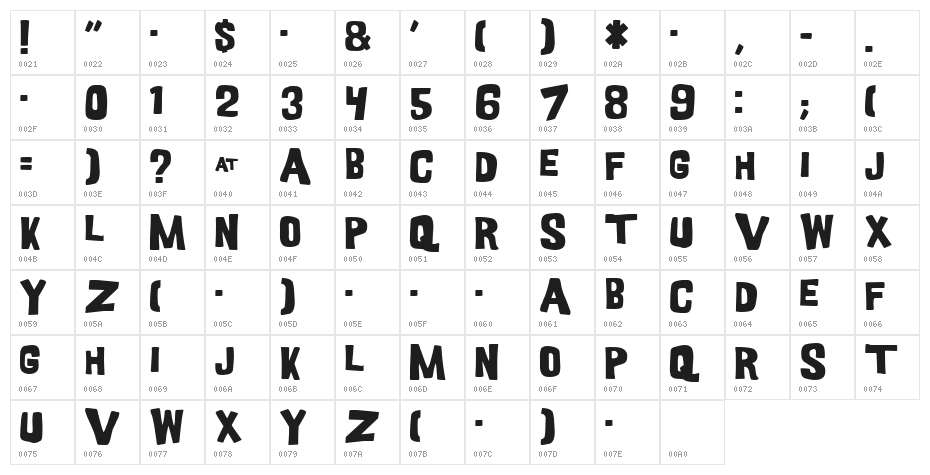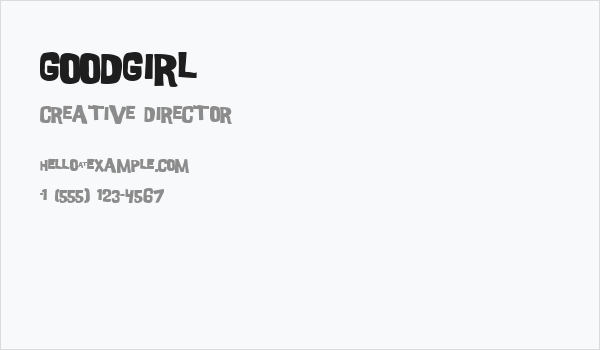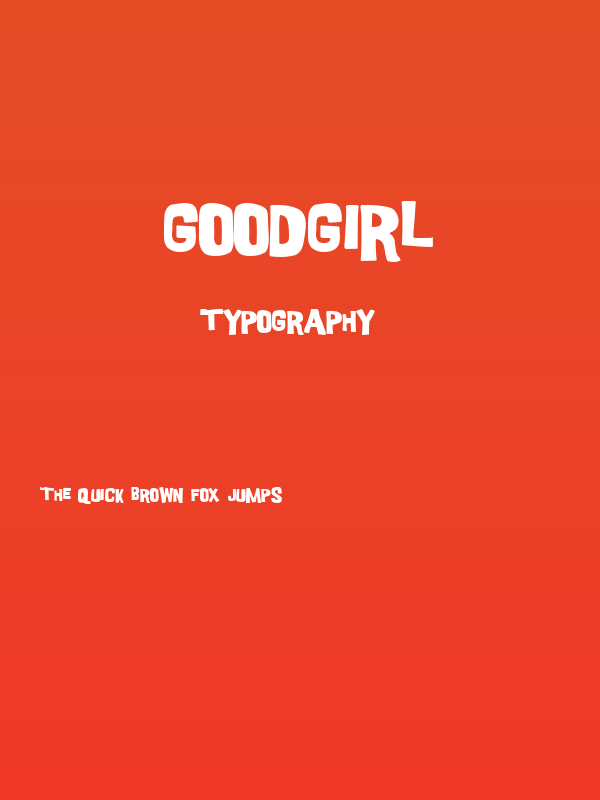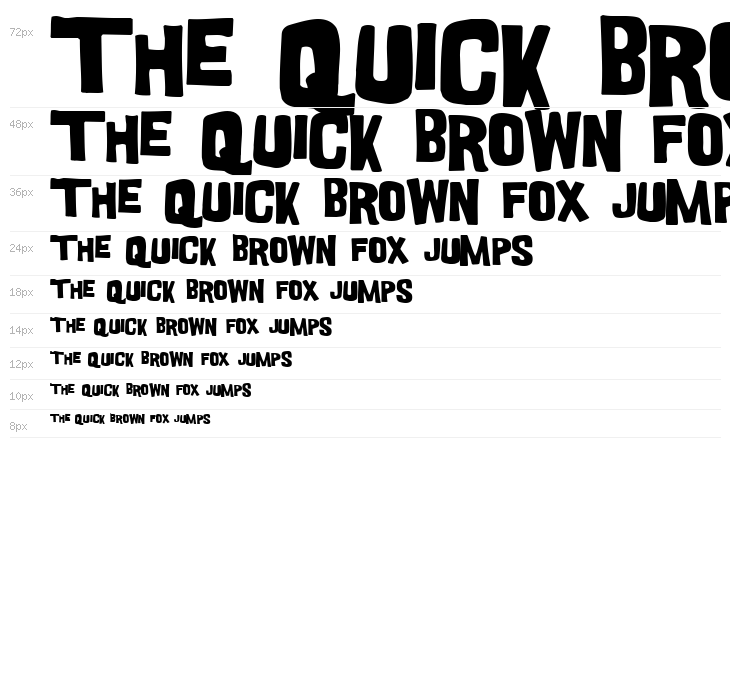
GoodGirl Font
GoodGirl Description
This bold and playful font features a unique, hand-drawn style with irregular shapes and a slightly whimsical appearance. The characters are thick and robust, with a slight tilt that adds a dynamic feel. The uppercase letters are bold and commanding, while the lowercase letters maintain the same playful essence. Numbers and special characters are equally bold, ensuring consistency across all text elements. The font's overall style is informal and fun, making it ideal for projects that require a touch of personality and creativity.
| Overall Style | Playful, Whimsical, Creative |
| Use Case | Headlines, Posters, Branding |
| Proposed Projects | Ideal for children's books, playful branding, posters, and creative advertising. |